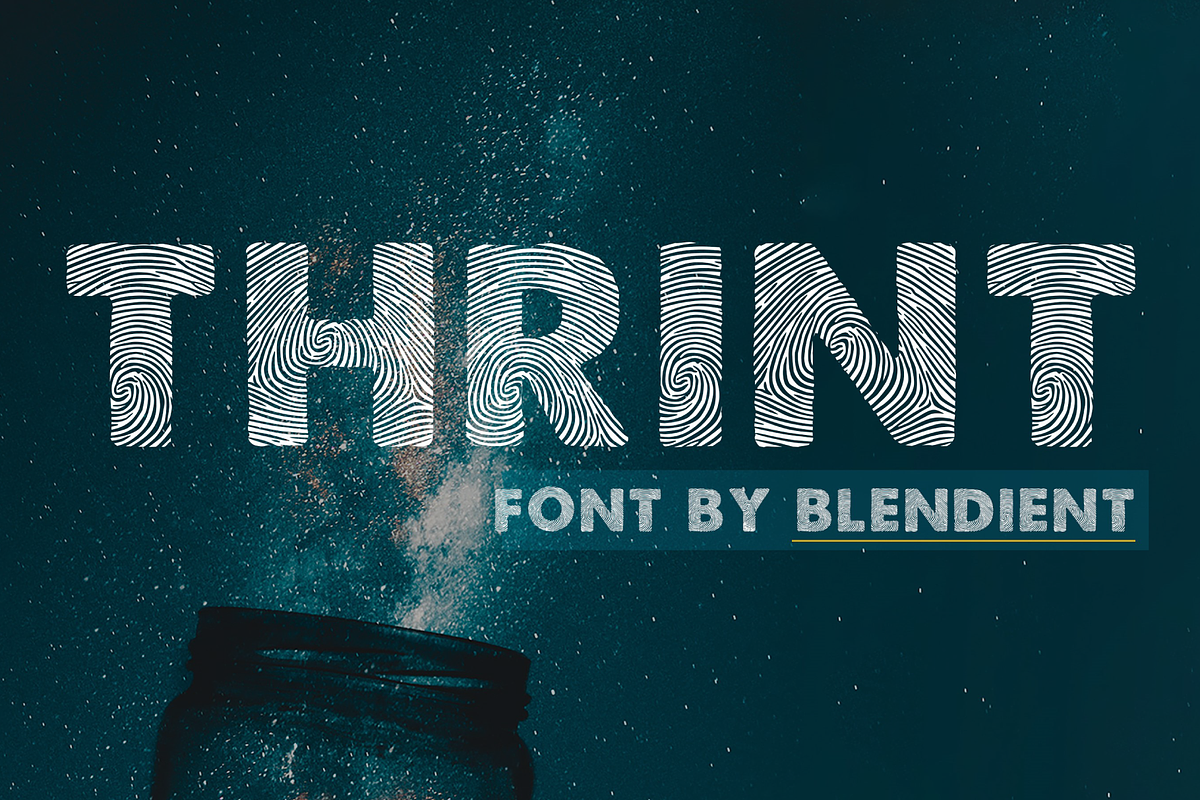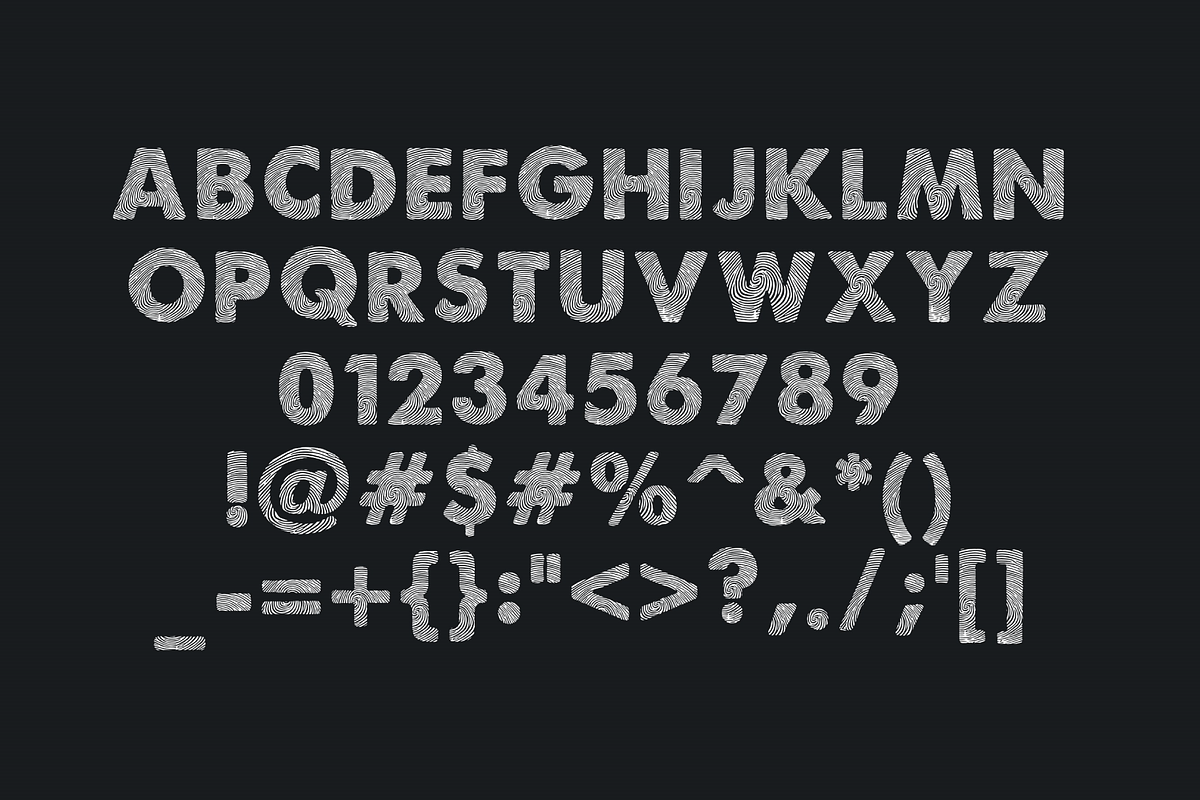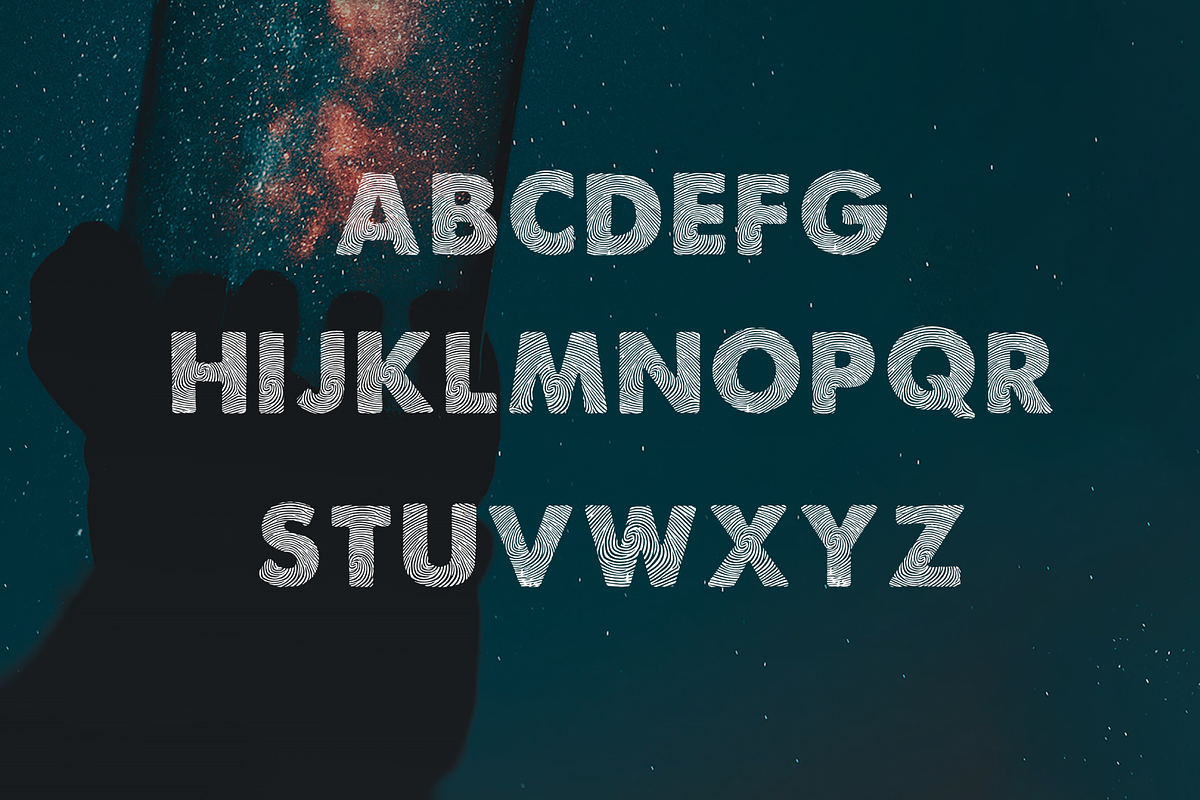
finger print font
A simple font made from Thumbprints. It includes all the characters including numbers. A Fingerprint font. A Thumbprint font.
- It includes all the characters including numbers.